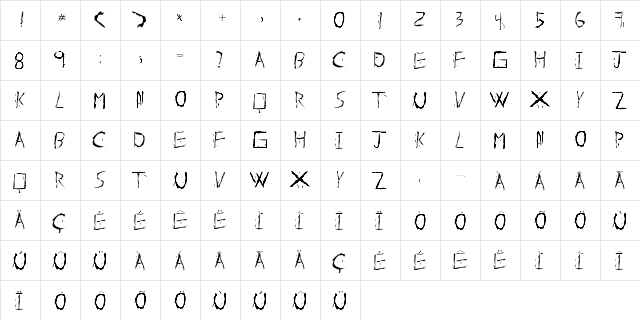
About Dead Regular
| Foundry | Paula Baptista e Bruno Breda |
Design Context for About Dead Typeface
About Dead is a composed and adaptable typeface that performs quietly and consistently across a wide range of design contexts.